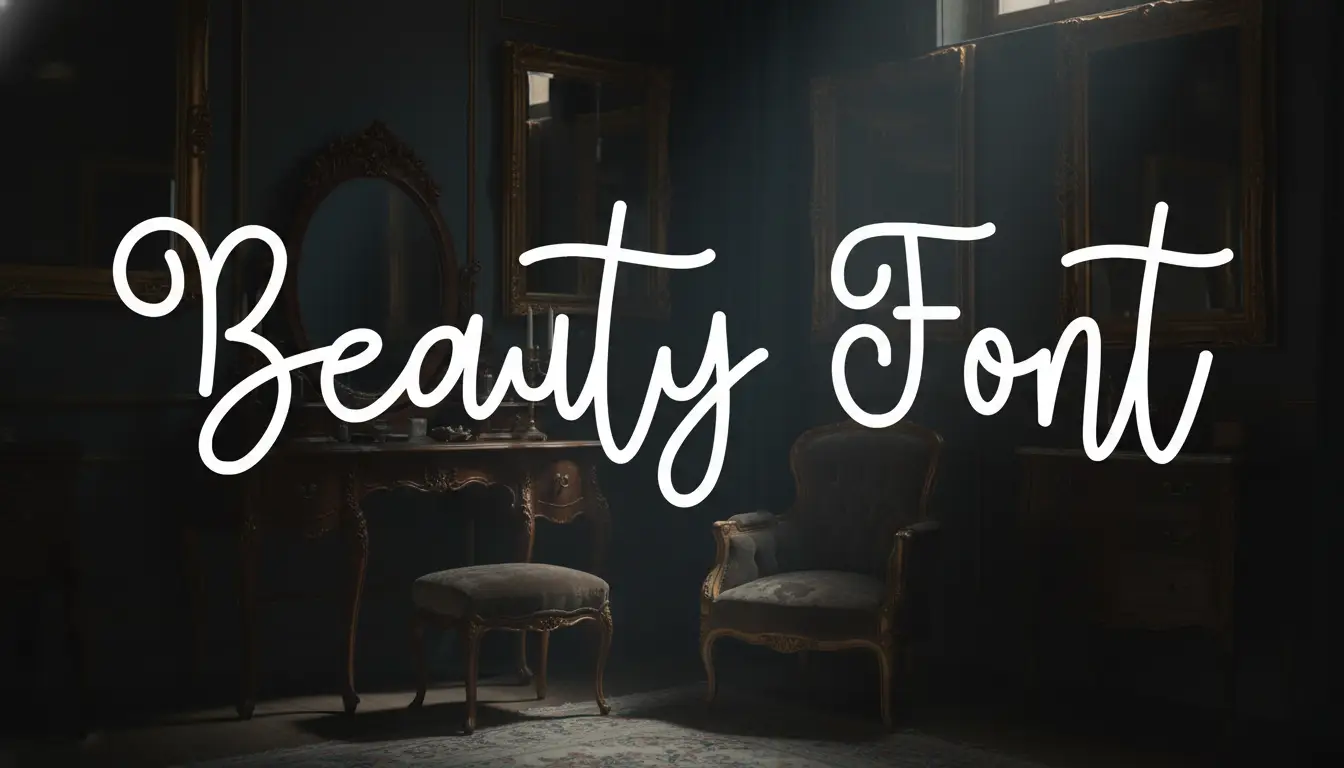
Beauty Font
Beauty is a holiday font designed by Nopianti and published by Fillo Graphic. It has a festive, celebratory look made for seasonal designs. It's a free download, and you can try it with your own text in the preview above first.
Beauty Font Details
- Designer: Nopianti
- Publisher: Fillo Graphic
- Category: Holiday font
- Glyphs: 169
What You Can Type With Beauty
With complete upper and lowercase letters and all ten digits, Beauty is ready for real wording, not just a single headline. Everyday marks like &, !, ? and @ are there too. Thanks to its accented letters, it also works for Spanish, French, Portuguese and Italian, not just English.
Where Beauty Works Best
Designers usually reach for fonts like Beauty when they're making seasonal cards, sale banners and party invites. Keep the wording short, like a greeting or a sale headline, and let the font set the mood.
Does Beauty support accented letters?
Yes. Beauty includes the accented letters needed for Spanish, French, Portuguese and Italian, so it works for more than just English.
What fonts pair well with Beauty?
A simple serif or sans serif works well for the smaller details.